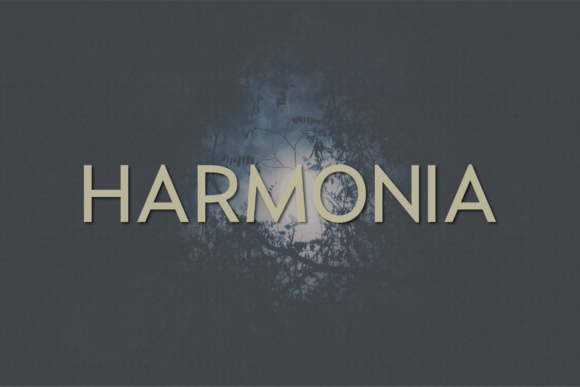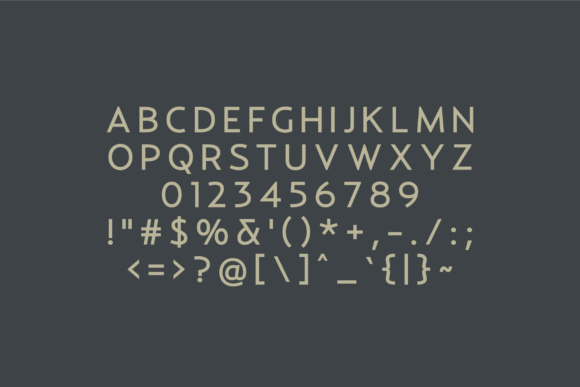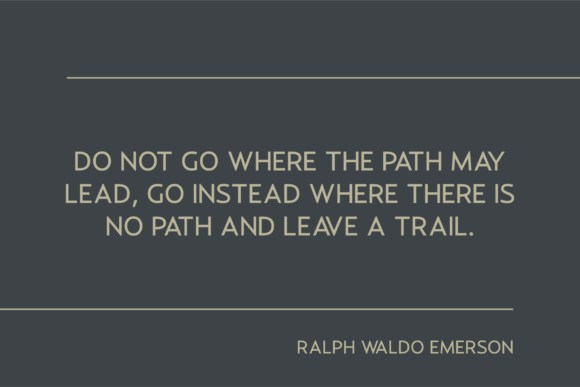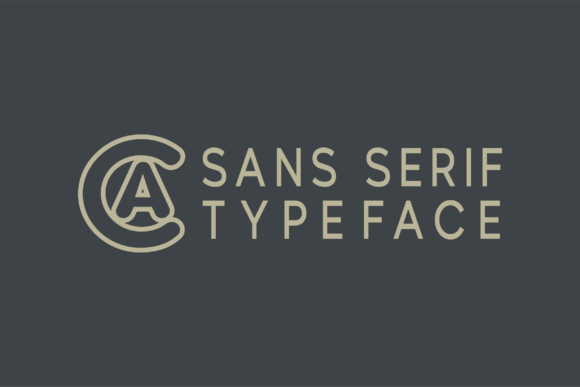
Designing with Harmony
Do you remember the moment when the perfect font finally clicks into place, elevating your entire design to the next level? It’s a feeling that’s hard to replicate, but one that we’ve all experienced at some point in our creative journeys.
For designers, finding that elusive perfect font can be a game-changer. That’s why we’re excited to introduce the Harmonia Font, a modern and classy sans serif typeface designed to bring harmony to your designs. With its clean lines, versatile style, and extensive character set, the Harmonia Font is perfect for a wide range of applications, from logos and weddings to advertisements and magazines.
Whether you’re a seasoned pro or just starting out, the Harmonia Font is an invaluable addition to any designer’s toolkit. Its adaptability and sophistication make it an ideal choice for any project that demands a touch of class and elegance.
Harmonia Font Key Features
- Font Family: Harmonia Font is a high-quality, professional font family that includes 6 styles: Light, Regular, Medium, Bold, Italic, and Bold Italic.
- Character Set: Supports a wide range of languages, including Latin, Cyrillic, and Greek alphabets, with over 1000 glyphs.
- Unique Characteristics: Harmonia Font features a unique blend of modern and classic elements, with a focus on readability and aesthetic appeal.
Harmonia Font Review
At first glance, Harmonia font looks stunning, with its elegant and refined aesthetic ✨. The designer’s attention to detail is impressive, from the smooth curves to the delicate flourishes. The font is perfect for creating a sophisticated and high-end look in any design project.
The font’s versatility is another major strength ✨. It can be used for both body text and headings, and its readability makes it an excellent choice for long-form content. Additionally, the font’s range of weights and styles provides designers with plenty of options to suit their needs.
While Harmonia font is excellent in many ways, it does have some limitations ⚠️. For instance, the font may not be the best choice for informal or playful projects, as its refined aesthetic can come across as too formal or stuffy. Additionally, some users may find the font’s complexity to be overwhelming, particularly when working with large blocks of text.
Overall, Harmonia font is a solid choice for designers looking to create sophisticated and high-end designs ✨. However, it may not be the best fit for every project, and designers should carefully consider the tone and style of their design before choosing this font.
- Smooth and elegant aesthetic
- Perfect for creating sophisticated and high-end designs
- Highly versatile and readable
- Range of weights and styles available
- Not suitable for informal or playful projects
- May be overwhelming for complex designs
Getting the Most out of Harmonia Font
To get the most out of Harmonia Font, try the following tips:
– Experiment with different font sizes and colors to create visual interest.
– Use Harmonia Font in combination with other fonts to create a unique and stylish look.
– Apply the font to various design elements, such as headings, subheadings, and body text.
Harmonia Font is commonly used in:
– Branding and logo design
– Print materials, such as business cards and brochures
– Digital designs, such as social media graphics and website headers
– Editorial and publishing projects, such as magazines and newspapers
Alternative Fonts to Harmonia
Playfair Display is a luxurious and elegant serif font perfect for high-end designs, wedding invitations, and luxury branding. It has a similar level of sophistication as Harmonia Font but with a more vintage feel.
Comparison to Harmonia Font: While both fonts are elegant, Playfair Display has a more ornate and classical look, whereas Harmonia Font is more modern and sleek.